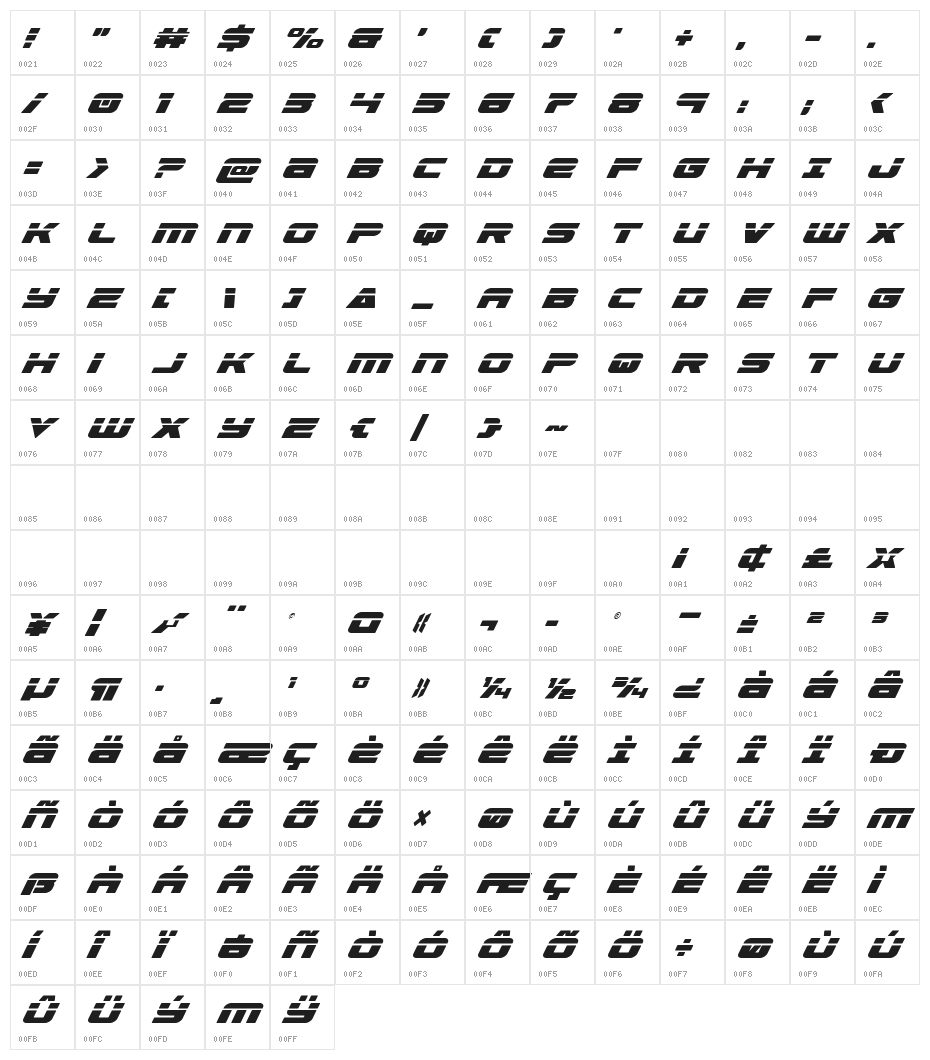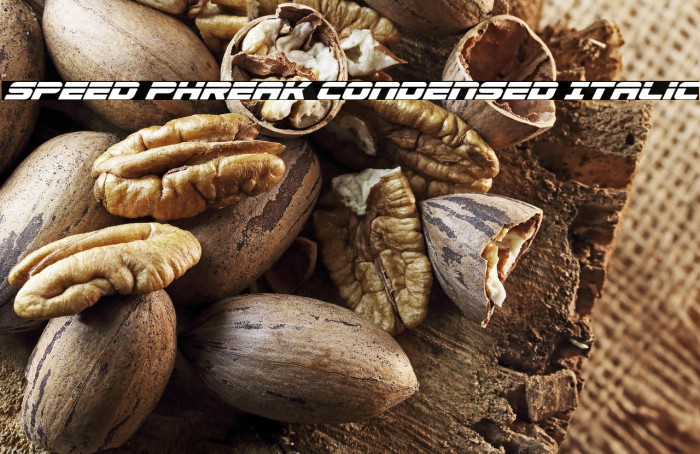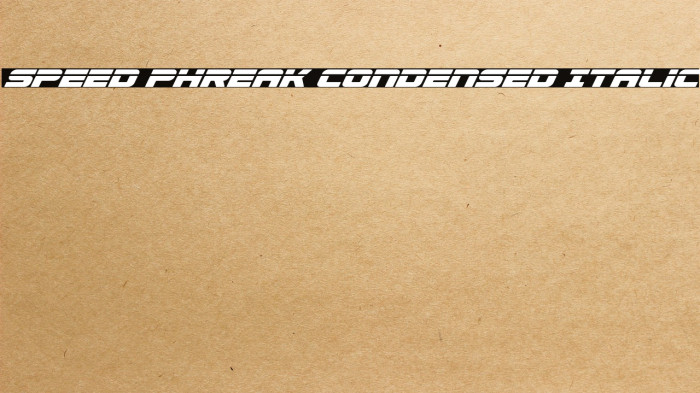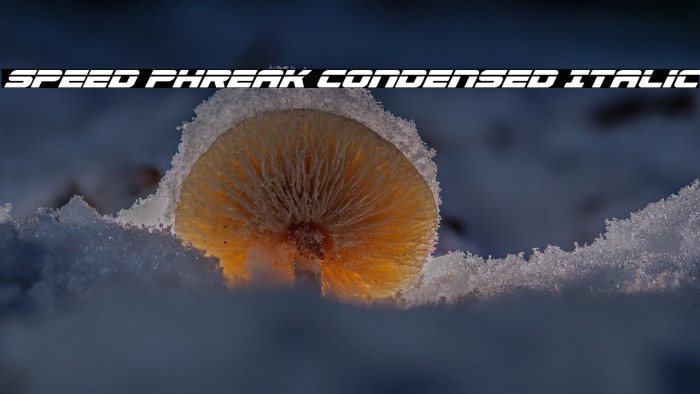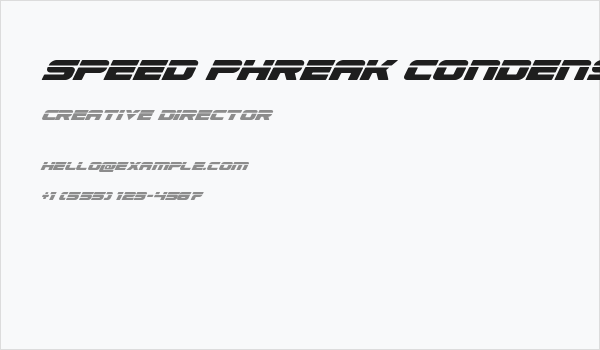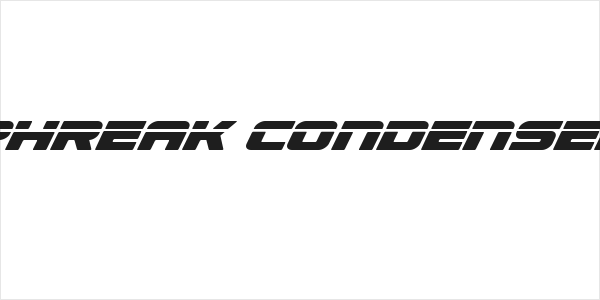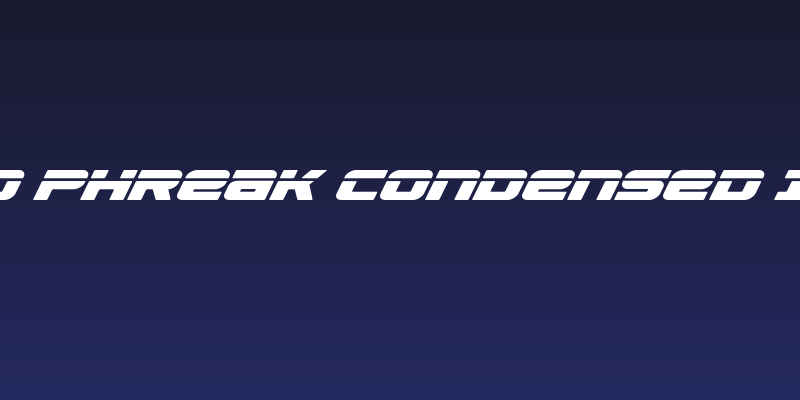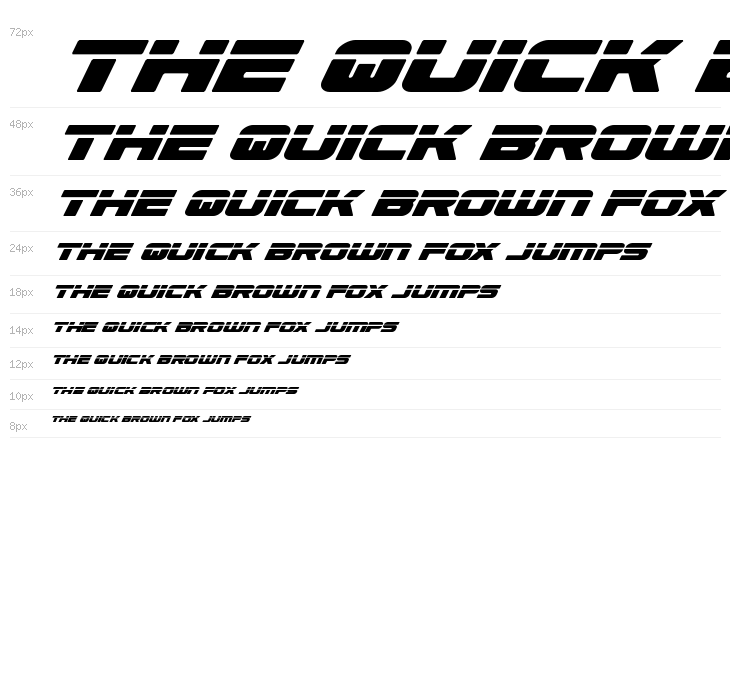
Speed Phreak Condensed Italic Font
Speed Phreak Condensed Italic Description
This font features a bold, italicized style with a distinctly futuristic and dynamic appearance. The characters are condensed, giving them a sleek and compact look. The design incorporates sharp angles and a forward-leaning posture, enhancing the sense of speed and movement. The uppercase and lowercase letters maintain a consistent style, with a strong emphasis on geometric shapes. Numbers and special characters follow the same design principles, ensuring uniformity across all glyphs. The font's boldness and condensed nature make it ideal for impactful visual statements.